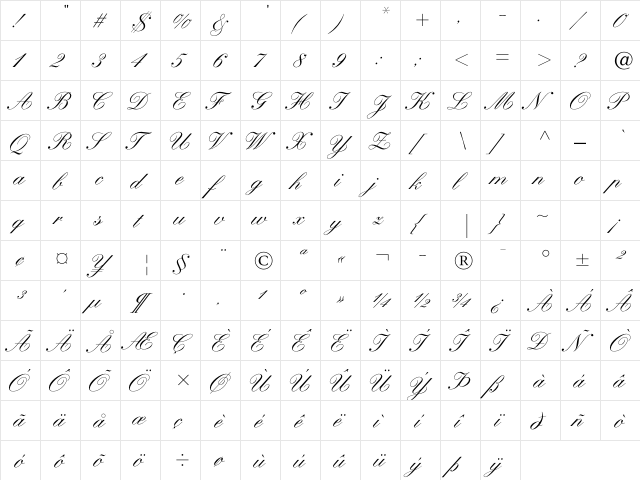
HeatherScriptC Regular
Design Context for HeatherScriptC Typeface
HeatherScriptC brings a calligraphic fluidity to the page — its connecting strokes and expressive curves give it an unmistakably human quality.
Font Pairing: Combine HeatherScriptC with a simple geometric sans for maximum contrast — the tension between flowing curves and clean structure is a classic typographic pairing.
Pro Tip: Pair HeatherScriptC with a clean sans-serif for supporting text. The contrast between fluid script and geometric structure creates an elegant typographic hierarchy.